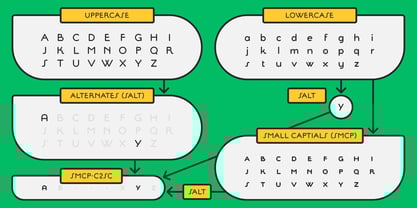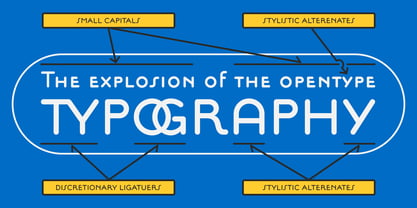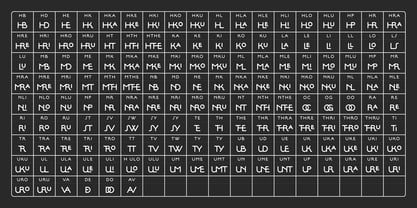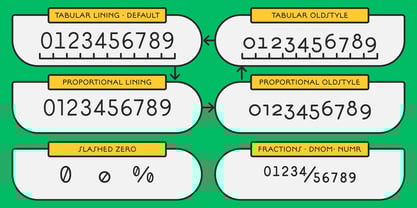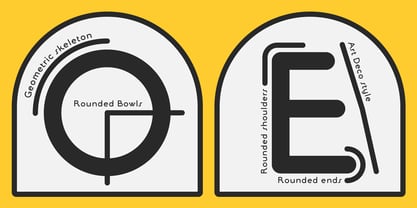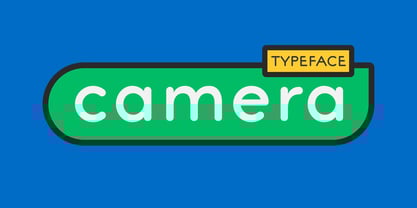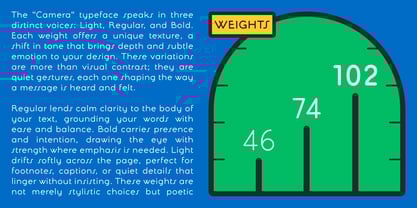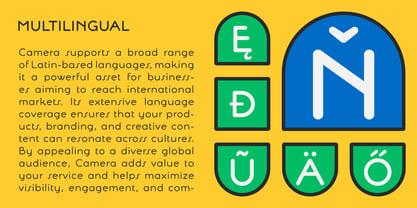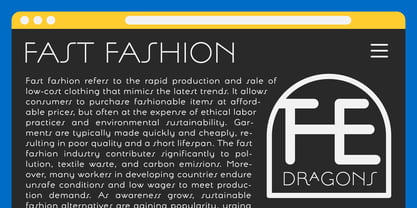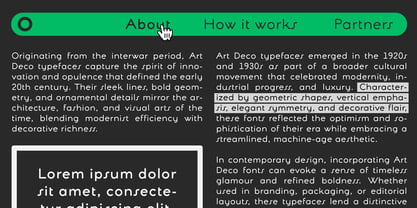
Camera™
by Dharma Type
The Camera Font Family was designed by Ryoichi Tsunekawa and published by Dharma Type. Camera contains 3 styles and family package options.
A legible, simple, and delightfully charming sans serif inspired by Art Deco advertisements from the late 1800s to the early 20th century.
This sweet and stylish typeface is perfect for retro-inspired projects that need a touch of vintage warmth.
It features carefully designed ligatures and small capitals, making it ideal for advanced typography and elegant layouts.